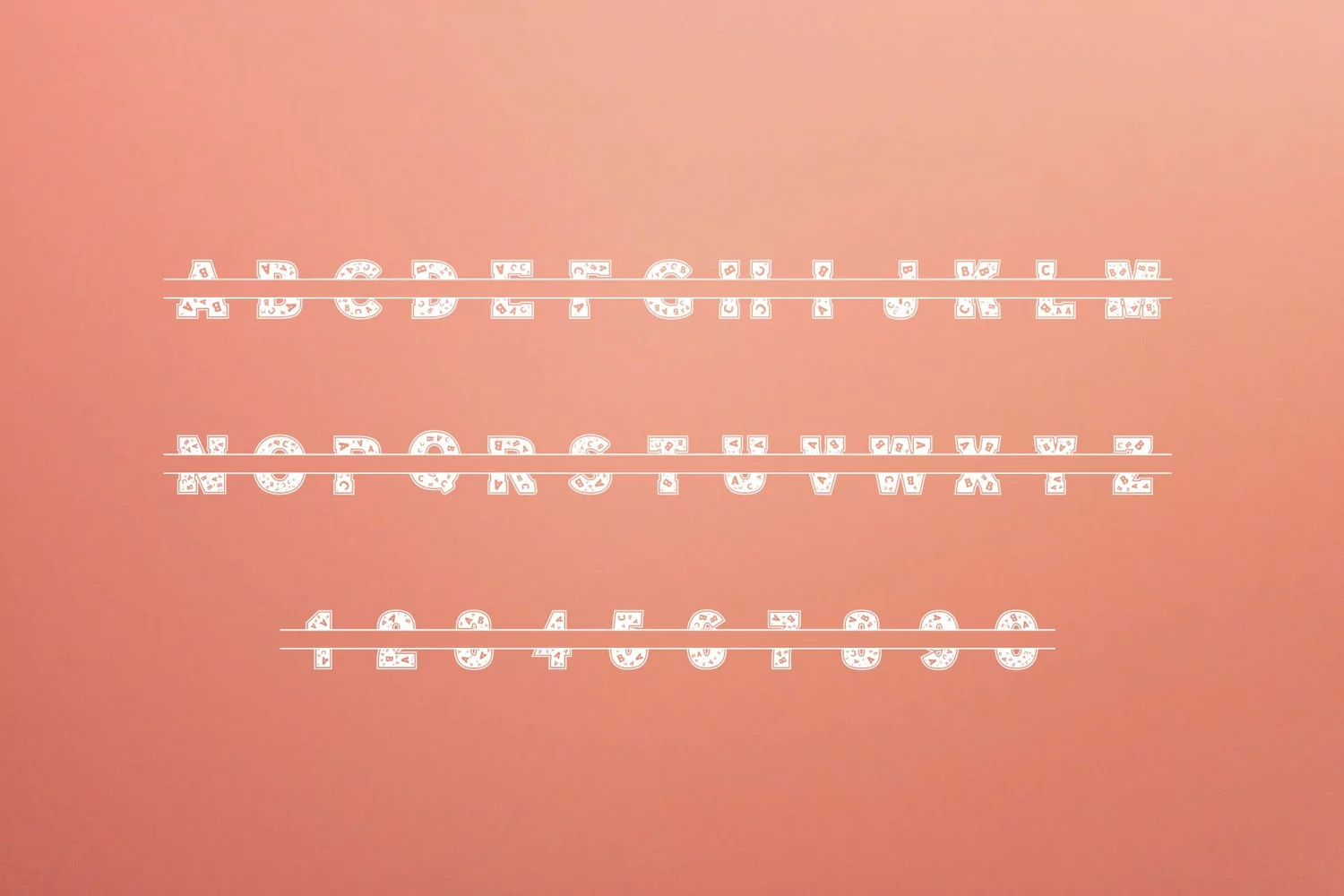
Back to School Split Monogram Font.
Back to School Monogram is a cool, bold and adaptable decorative font. It embodies playfulness and authenticity and is the perfect choice for any children activity or school project.
Its perfect for children books, greeting cards, toys, posters, baby clothing and more.